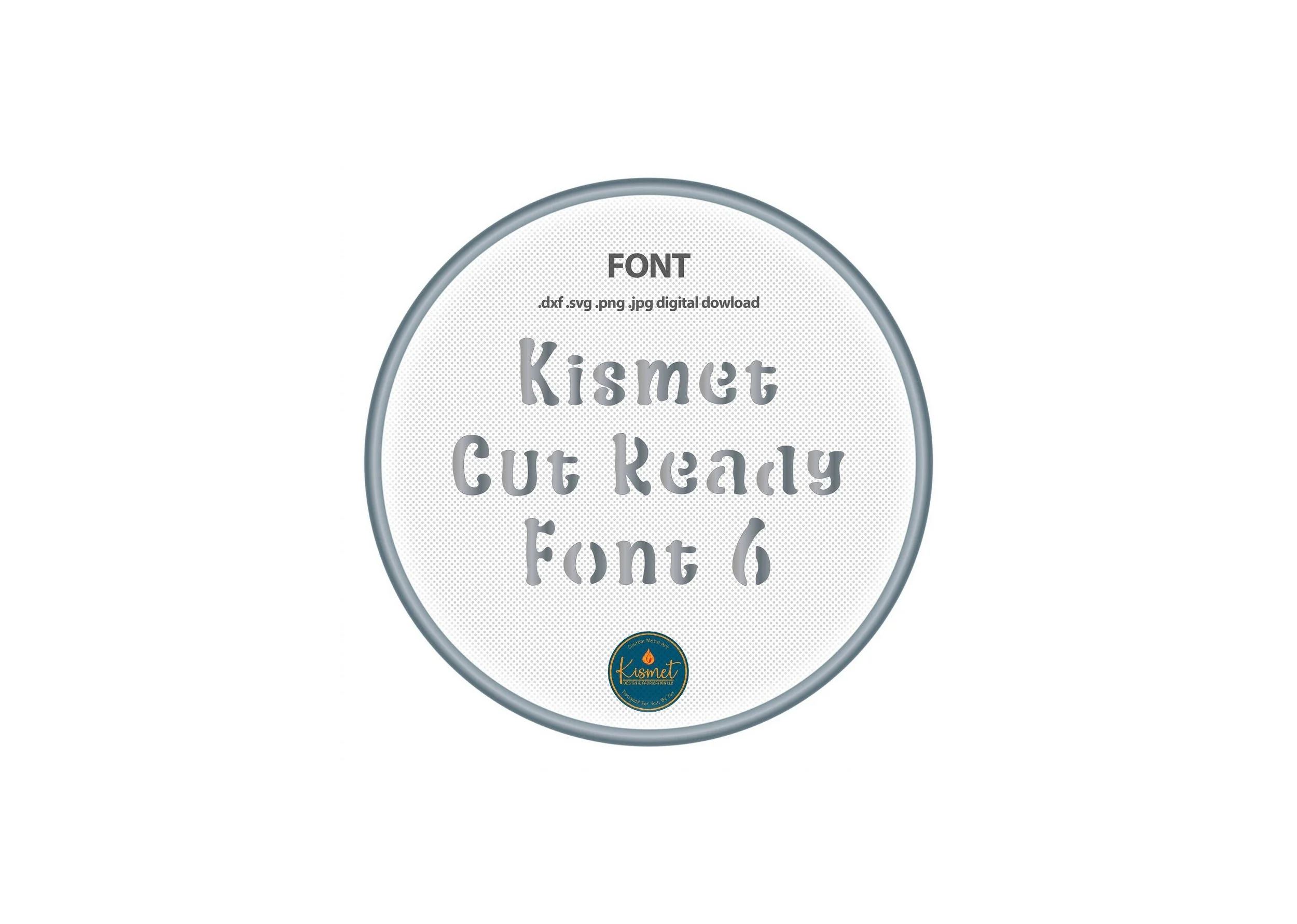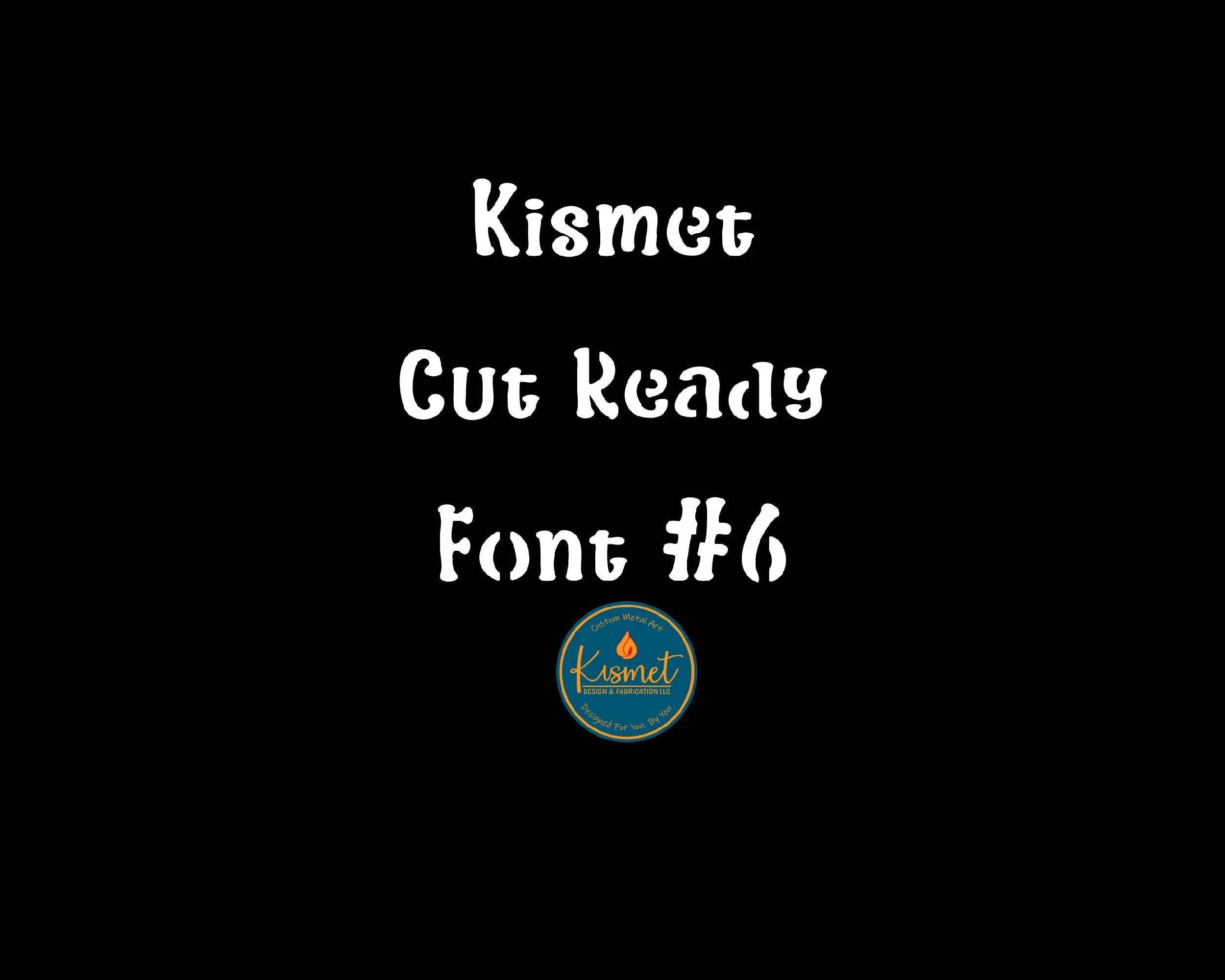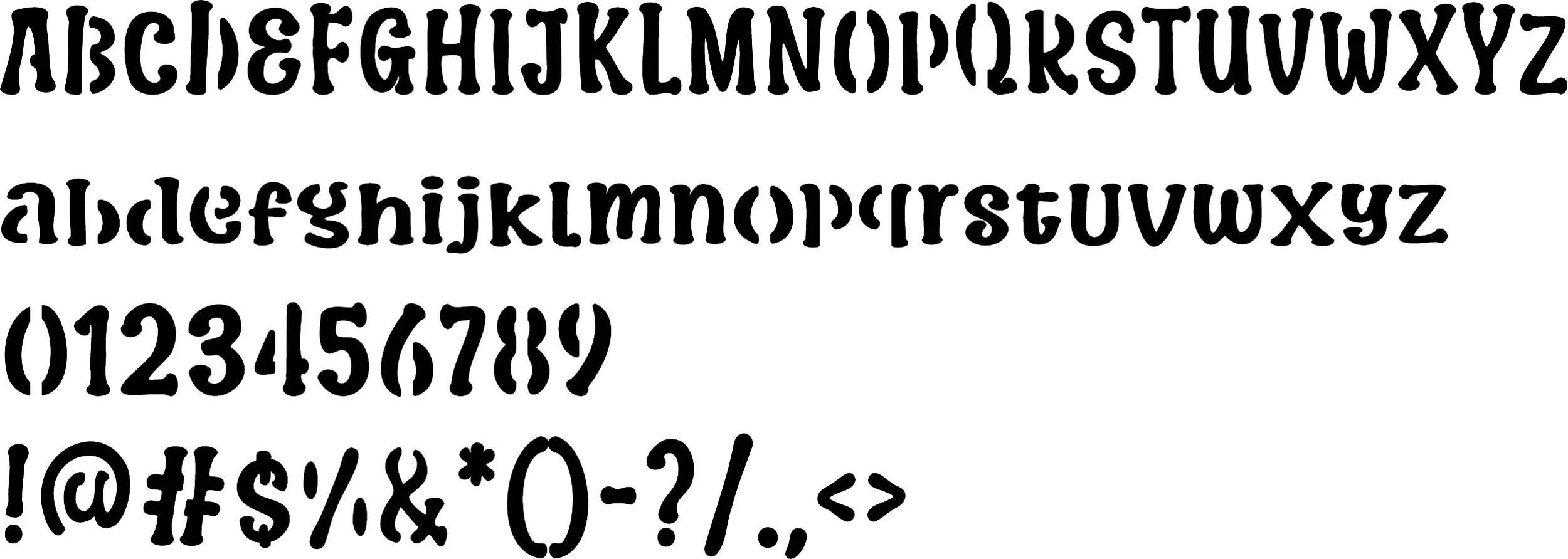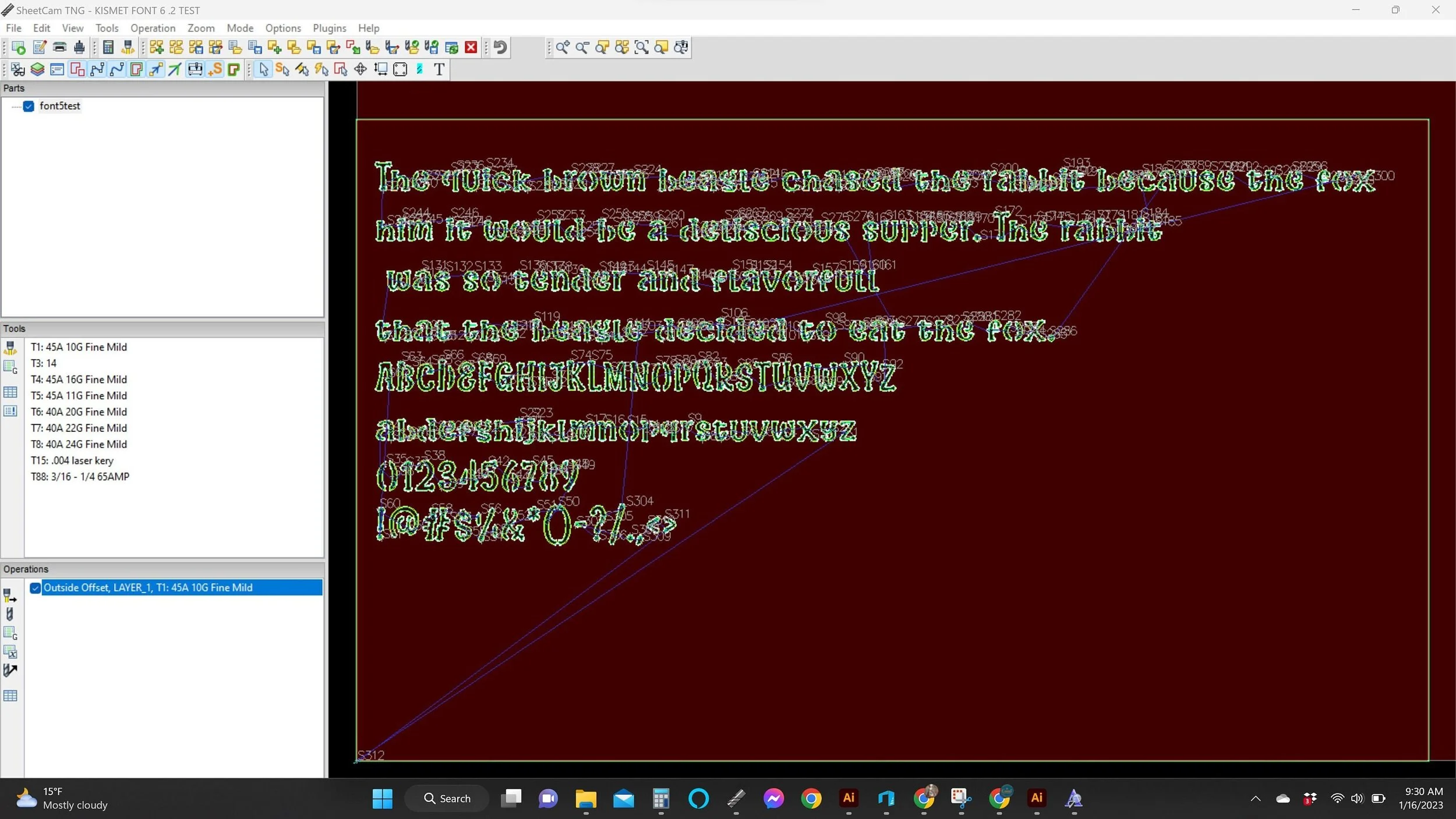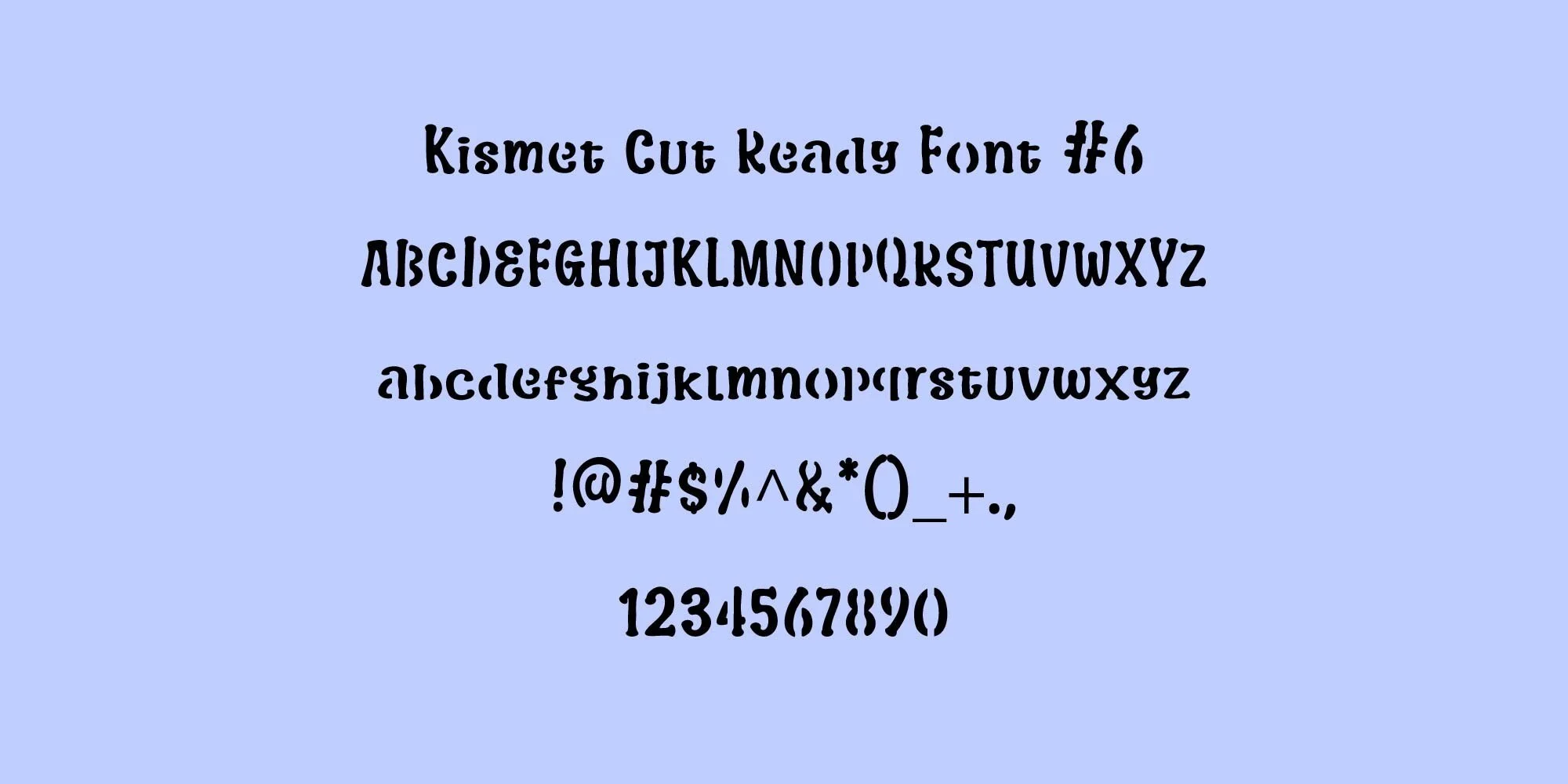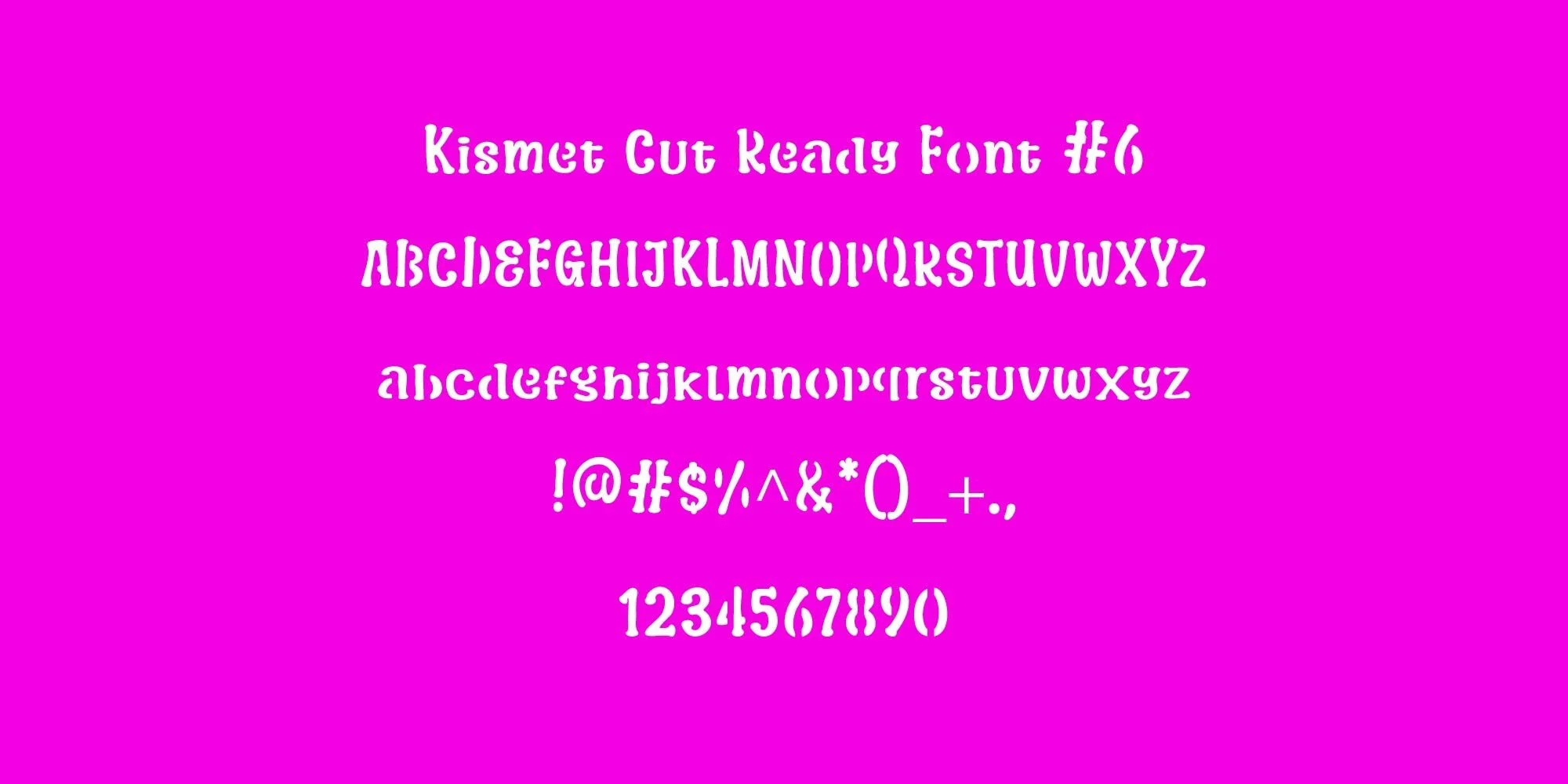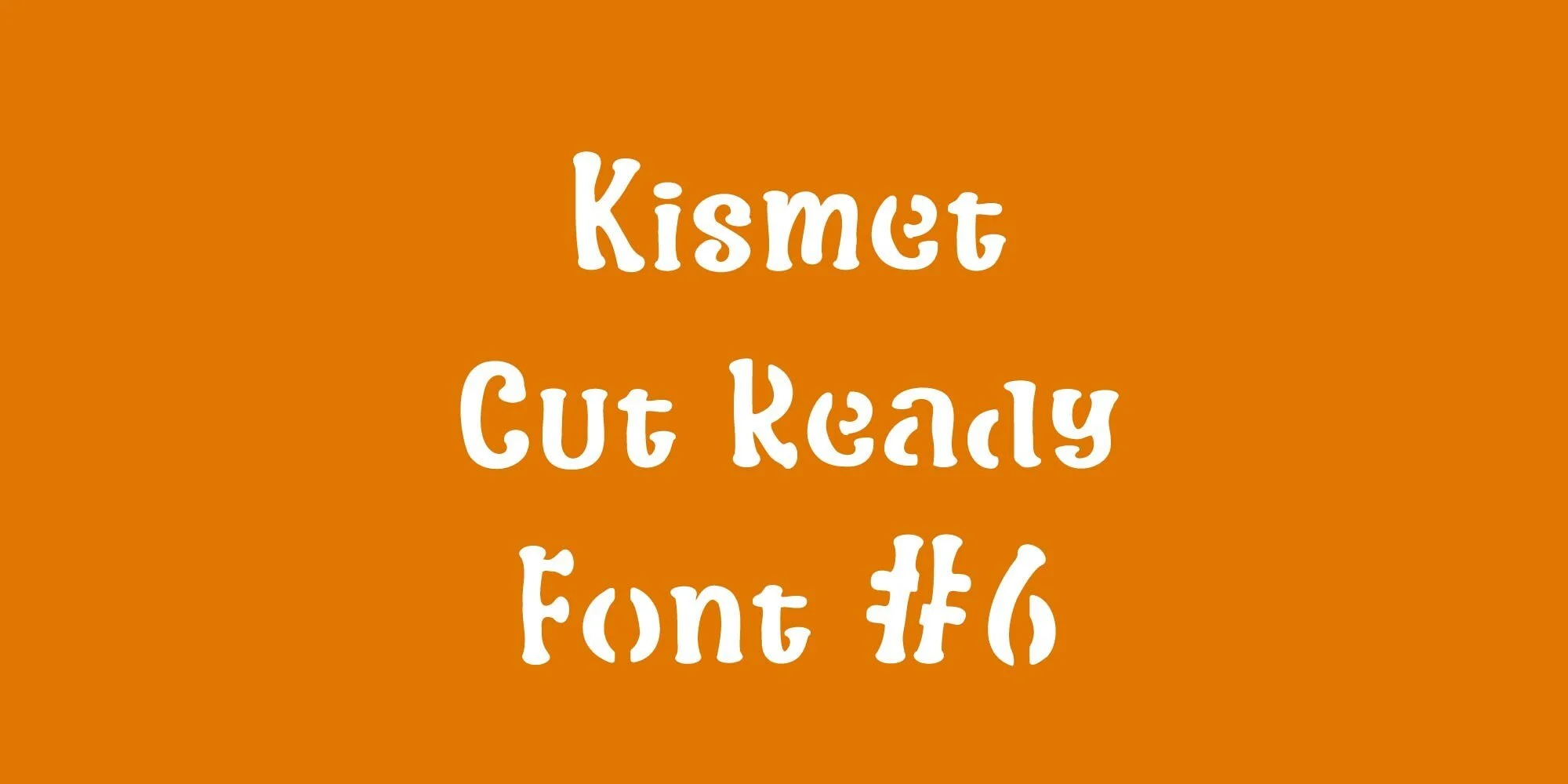
Serif Font SVG, Stencil Bridged Font, CNC Plasma Cut Ready Fonts, Cricut (Digital Download)
Introducing the latest in our stencil font ttf collection, our bridged font dxf files for cnc cutting digital download . This script font includes clean cutting png svg jpg and dxf cut files for a full collection of files formats to suit your needs. These versatile serif font svg files for cricut make beautiful files for laser and are will be the perfect addition to your svg designs.
Hand drawn in Adobe Illustrator